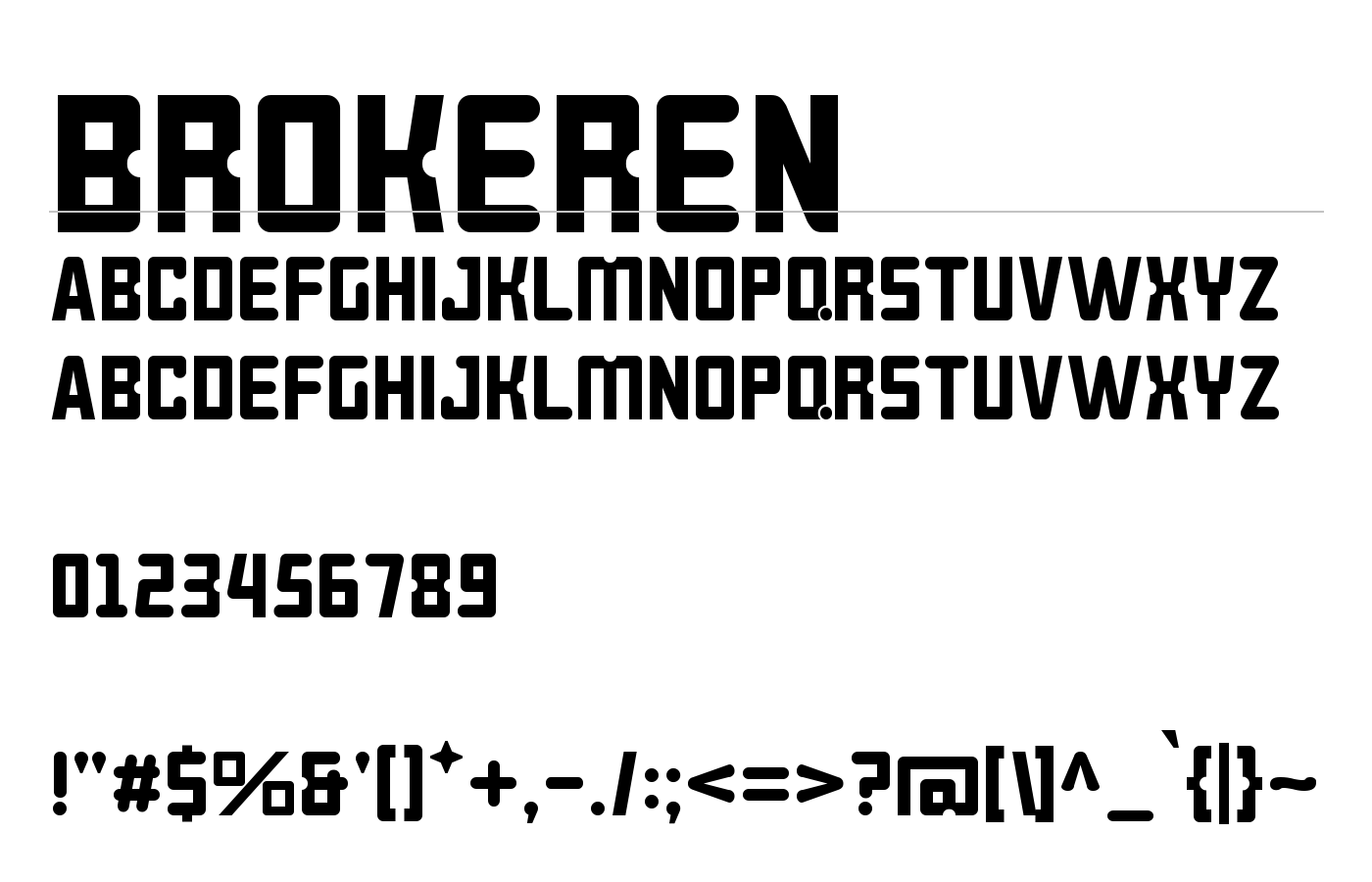
BROKEREN is a bold, narrow sans serif font with a modern, industrial feel. Its strong, blocky letterforms feature subtle rounded corners and distinctive cut-out details, giving it a unique, technical character ideal for logos, headlines, and branding that demand a futuristic or edgy style. This font works well in projects where a confident and contemporary appearance is key, such as tech, gaming, and urban design.
| Font family | BROKEREN Font |
| Designer | Situjuh Nazara |